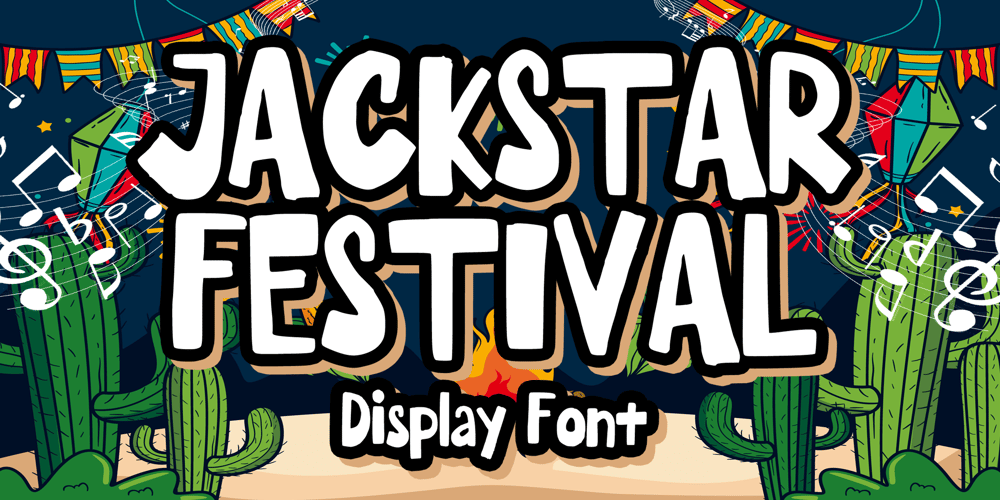
Jackstar Festival
Jackstar Festival font
Jackstar Festival Font Family was designed by Gabriel Valentinus and published by Mvmet. Jackstar Festival contains 1 styles and family package options. Jackstar Festival is a cute and festive cartoon display font. It will elevate a wide range of design projects to the highest level. You can use this font for many design ideas such as stickers, t-shirt designs, amazing logo designs, magazine or book covers, comics, cartoon drawings, daily typing, and many more. This font will add a super cool touch to your designs!